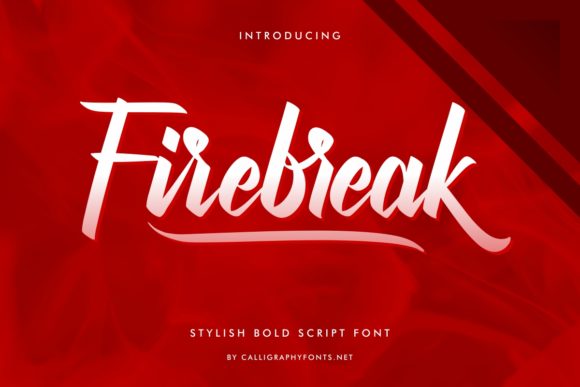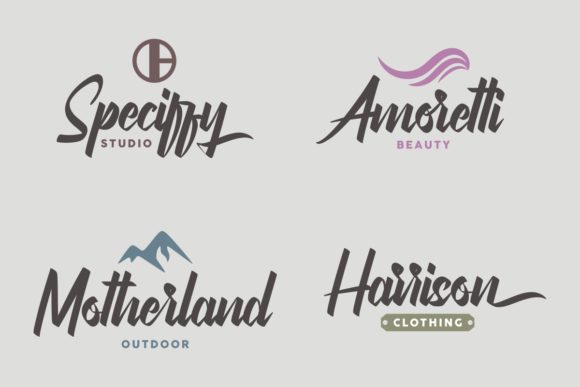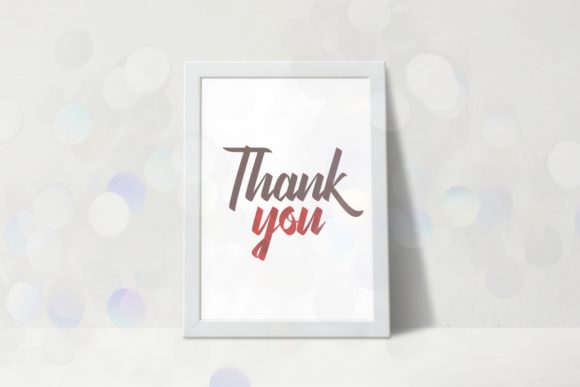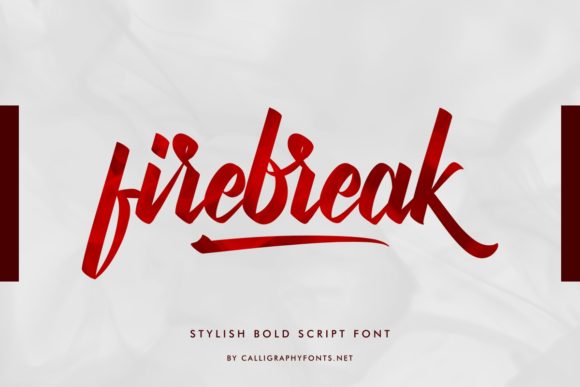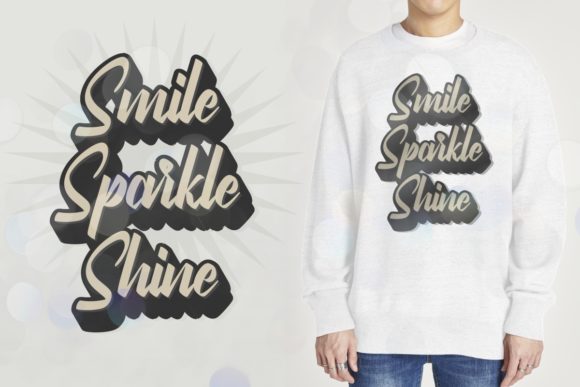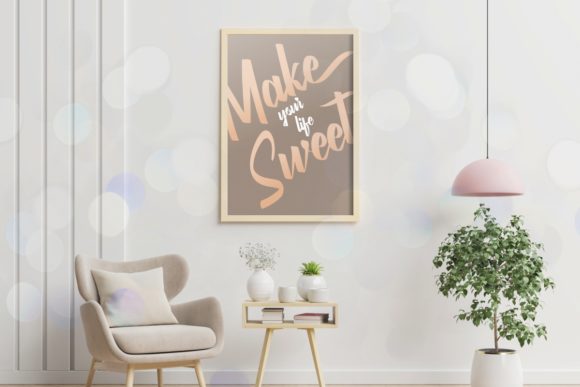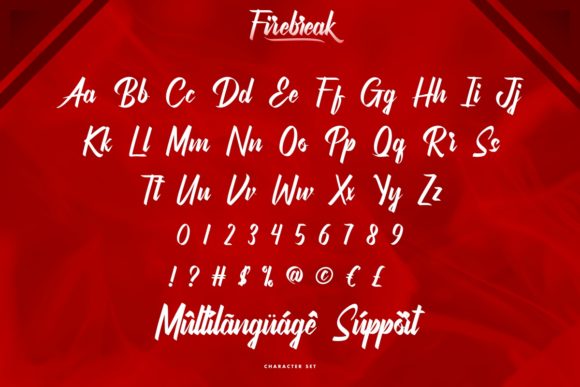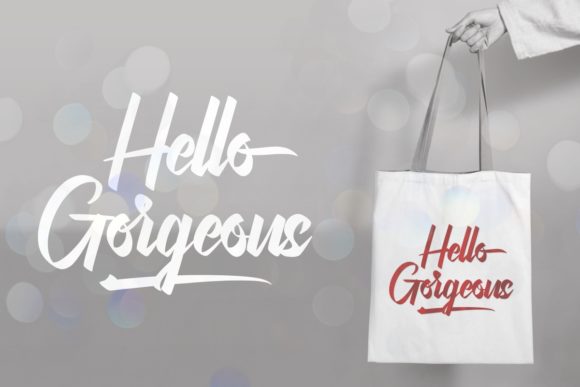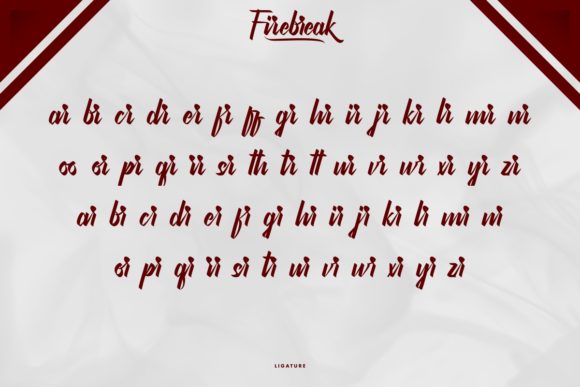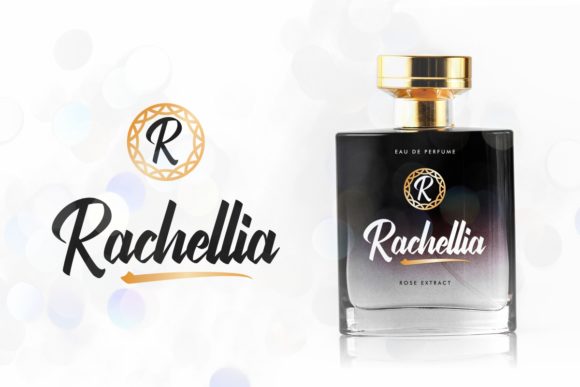
Firebreak Font
About Firebreak Font
Firebreak is a stunning and bold handwritten font designed to elevate your headlines and logotype projects with a stylish touch. This font exudes strength, confidence, and dynamism, making it a perfect choice for designs that demand attention and make a statement.
With Firebreak, you can infuse your designs with a sense of nostalgia and character. The unique handcrafted style of the font adds an element of authenticity and personality, making your text stand out from the crowd.
This font is particularly well-suited for headlines, titles, and logos, where its bold and impactful appearance can make a powerful impression. Whether you’re creating a vintage-inspired poster, a bold branding project, or a striking social media graphic, Firebreak will add a touch of elegance and distinction.
The PUA encoding of this font allows for easy access to all the available glyphs and swashes. This means you can effortlessly incorporate beautiful decorative elements and flourishes into your designs, enhancing their visual appeal and giving them a unique and customized look.
Firebreak’s versatility extends to a wide range of design applications. It can be used in various print and digital media, including posters, packaging, advertisements, apparel, and more. Its bold and expressive nature ensures that your designs will grab attention and leave a lasting impression on viewers.
In summary, Firebreak is a gorgeous and bold handwritten font that brings a stylish touch to your headlines and logotype projects. Its strong and confident appearance adds character and nostalgia to your designs, making them stand out. With easy access to all the glyphs and swashes, you can personalize your designs and create a truly unique visual experience. Incorporate Firebreak into your next project and let it ignite the spark of creativity.